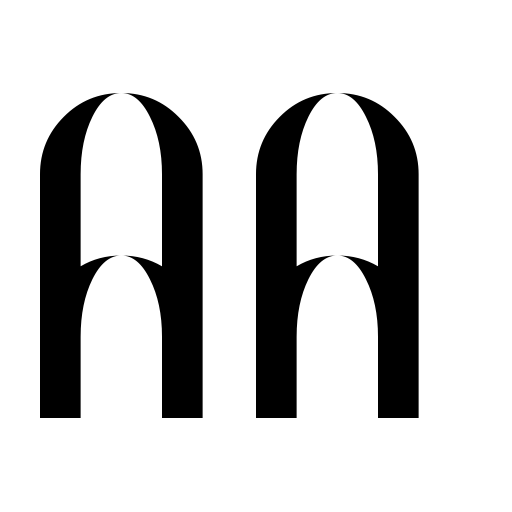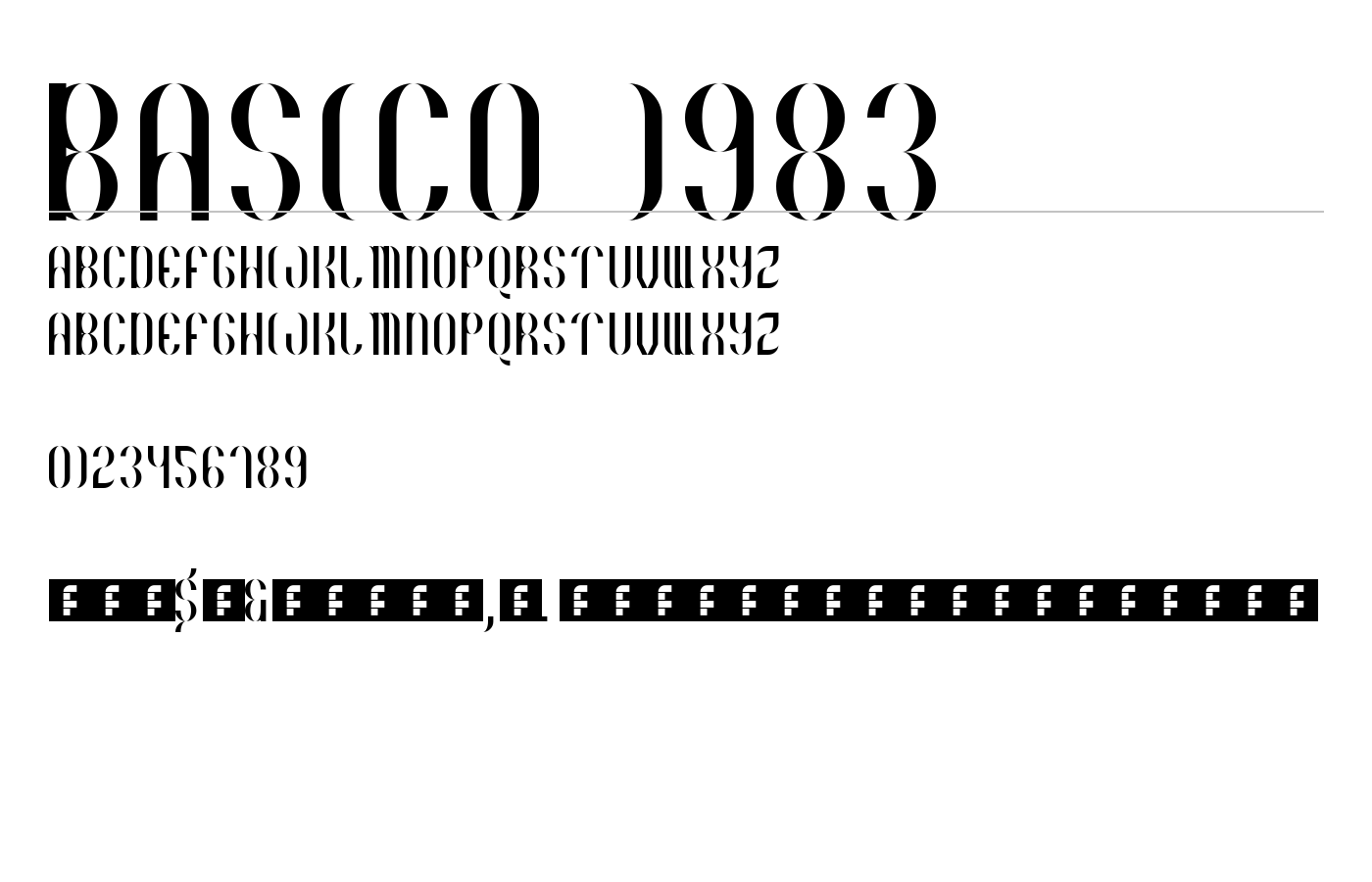
Basico 1983 is a striking serif font characterized by its tall, narrow letterforms and high contrast between thick and thin strokes, giving it a dramatic, modern vintage feel. Its elegant and condensed style with unique, stylized curves makes it perfect for bold headlines, fashion branding, and editorial designs that seek a sophisticated yet edgy presence. This font works well in contexts where a luxurious and distinctive look is essential to capture attention.
Basico 1983 Font
About Basico 1983 Font